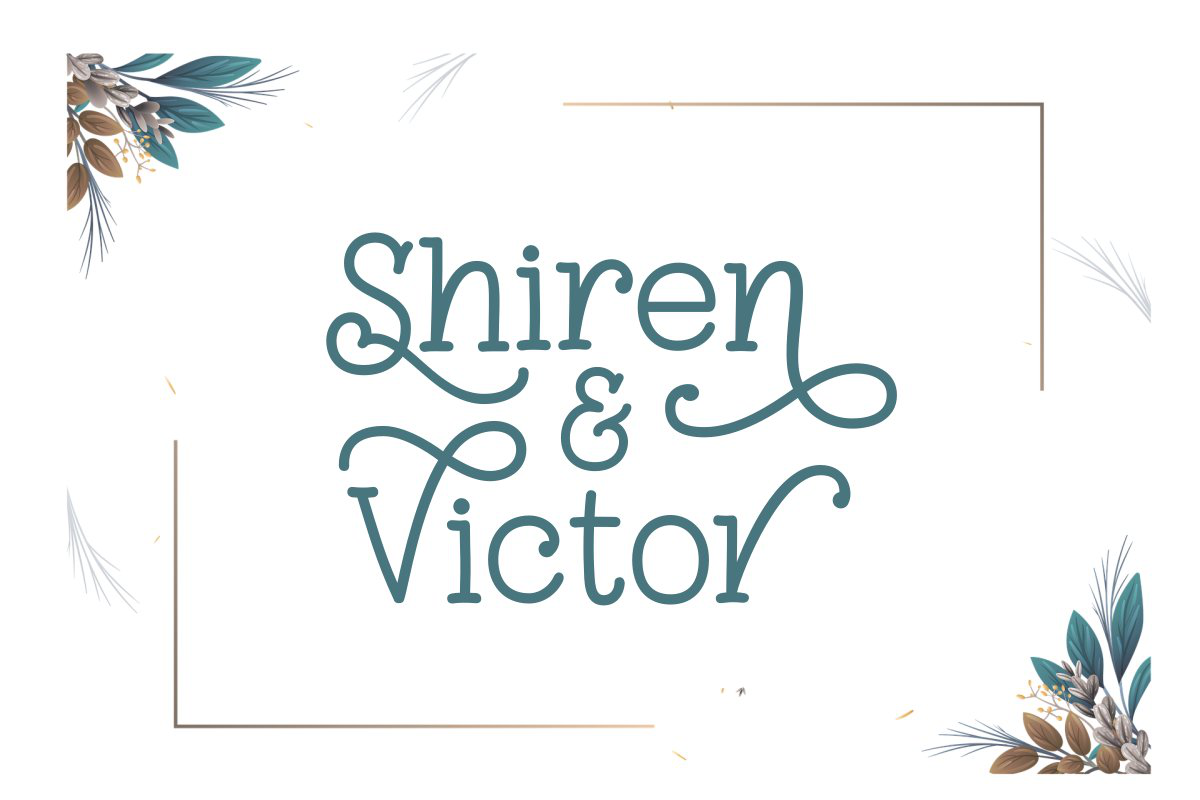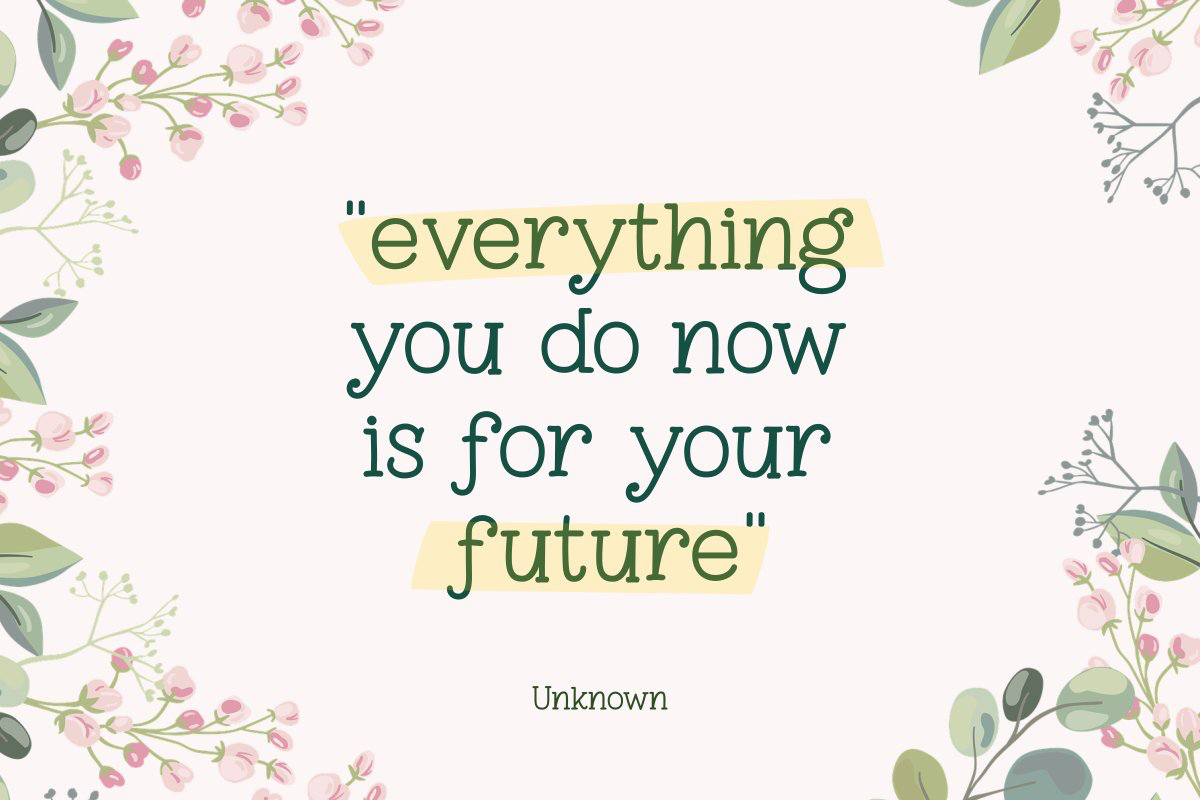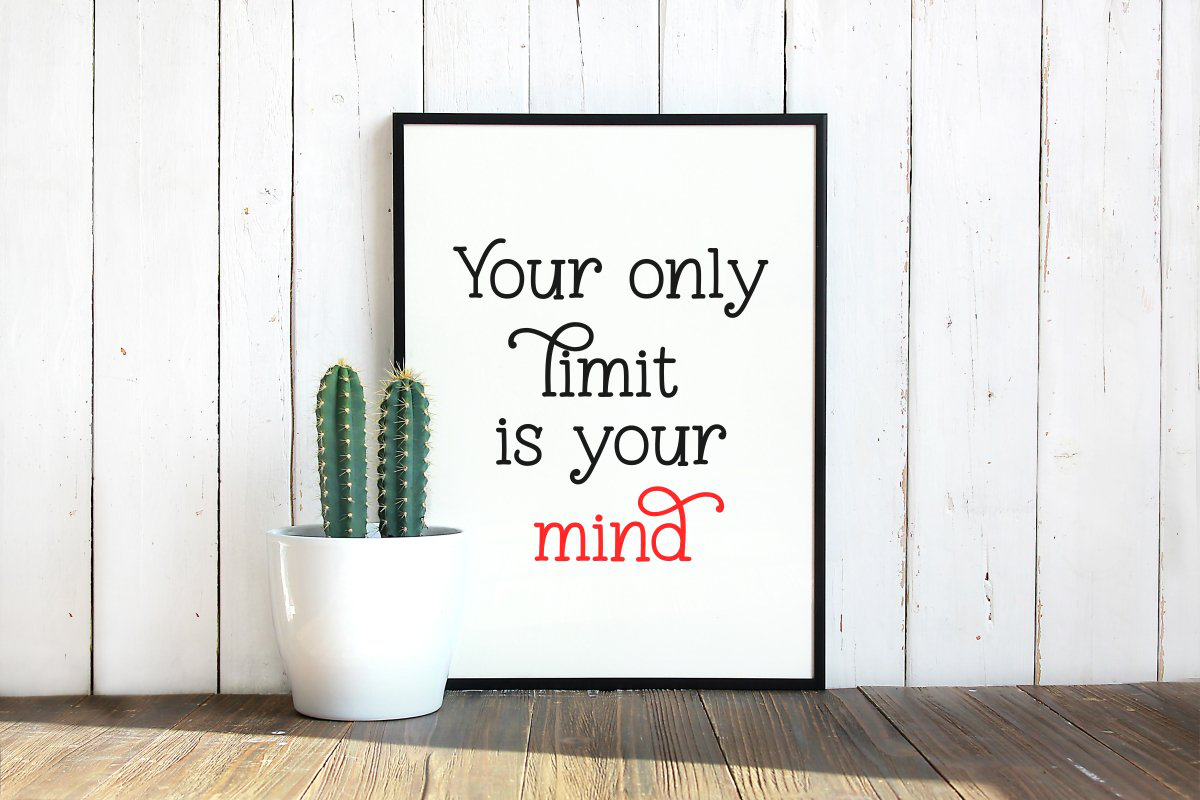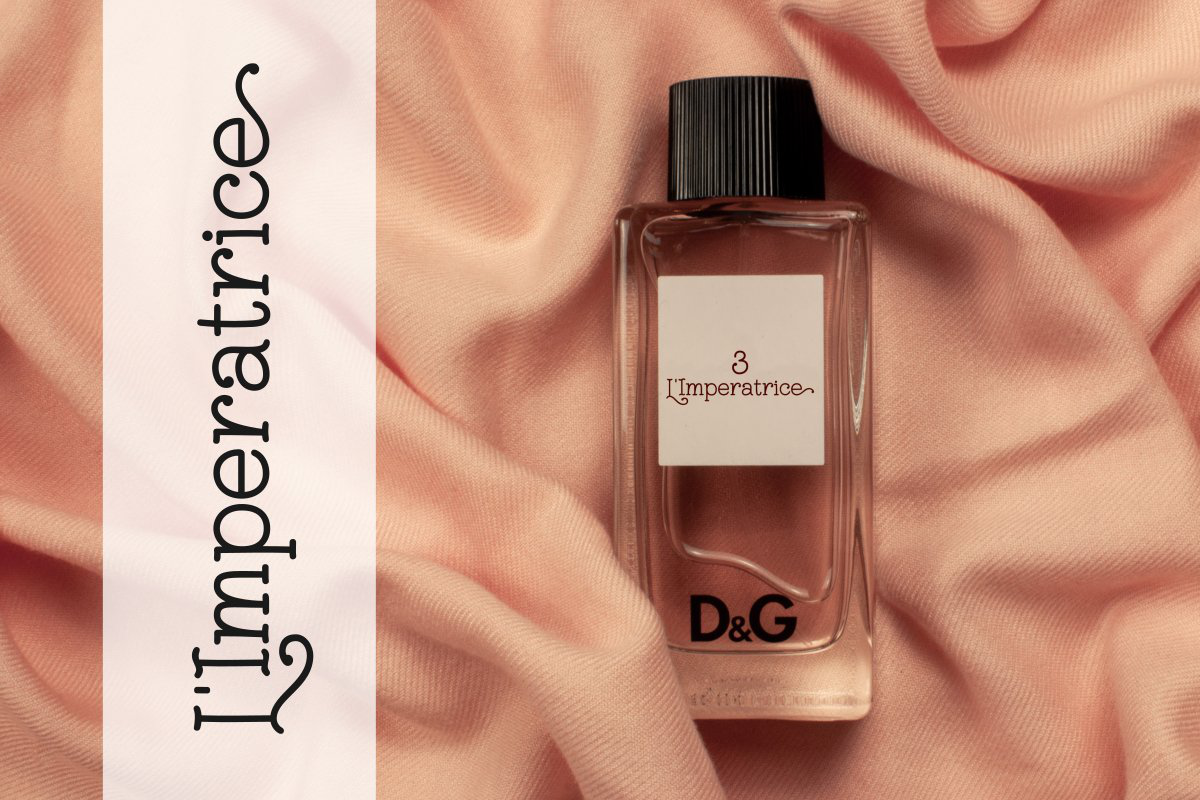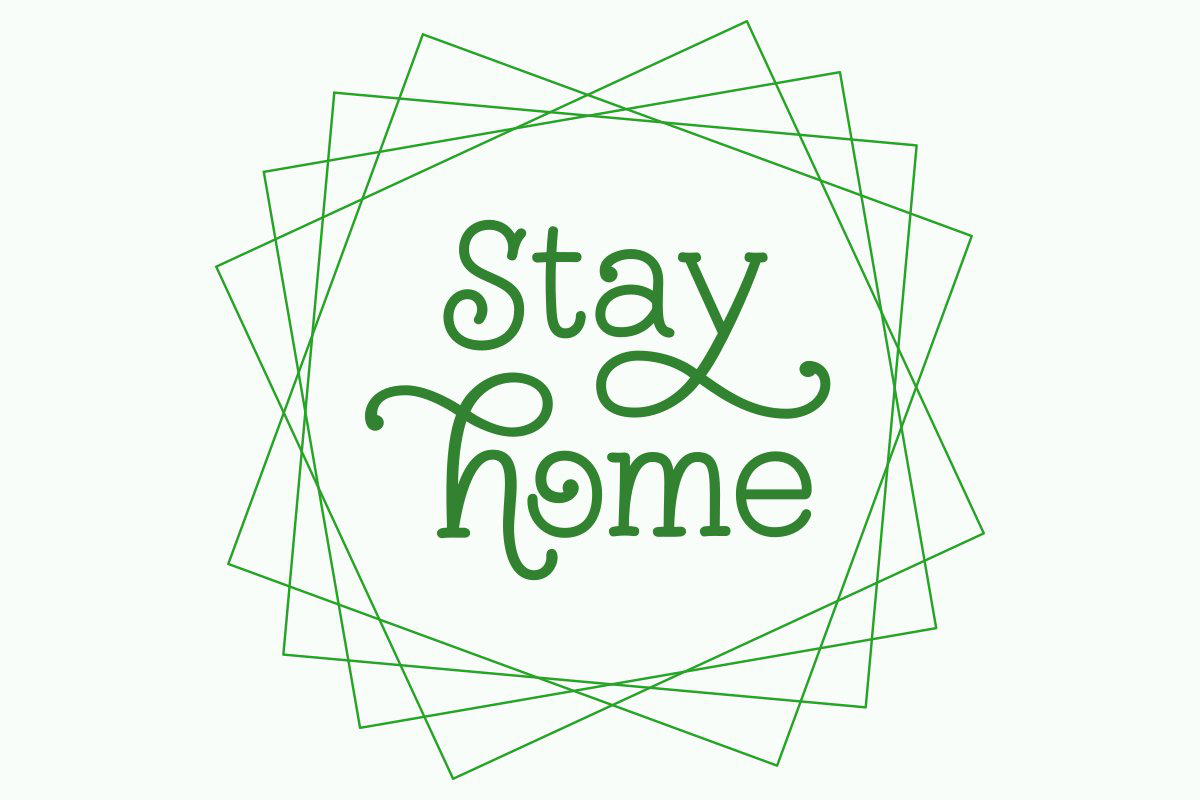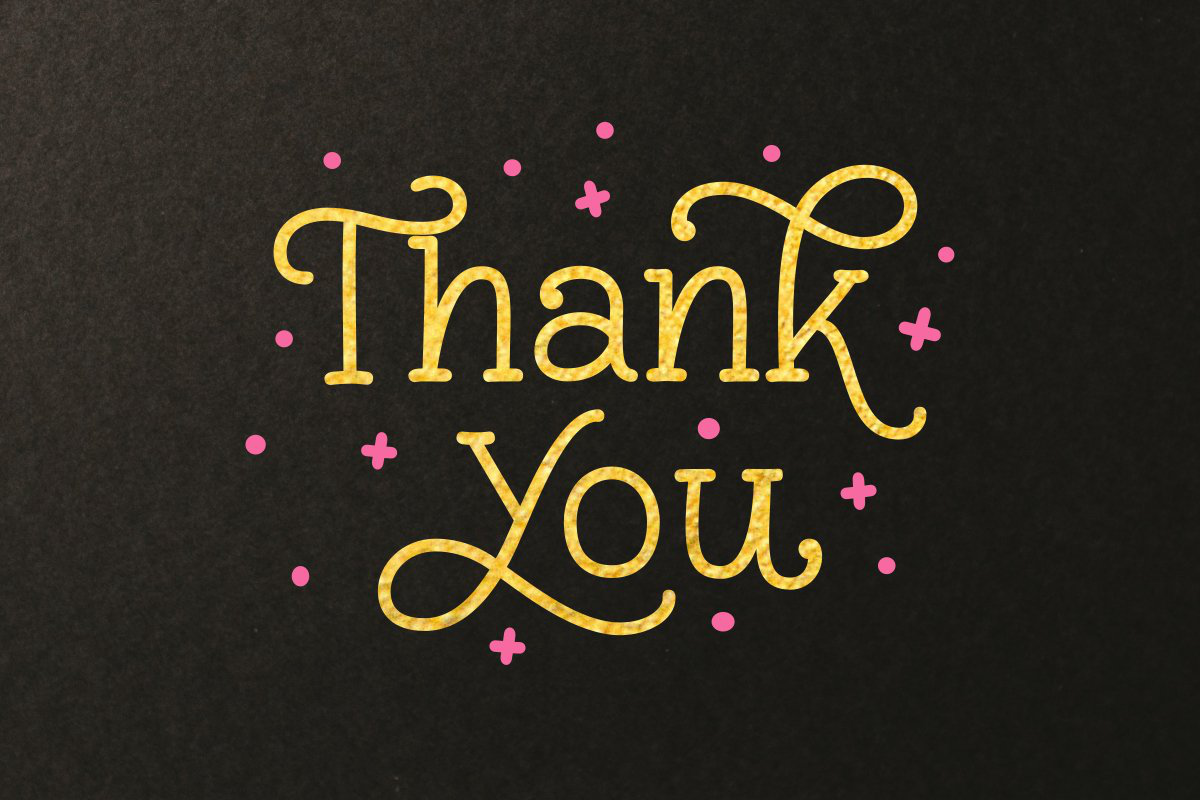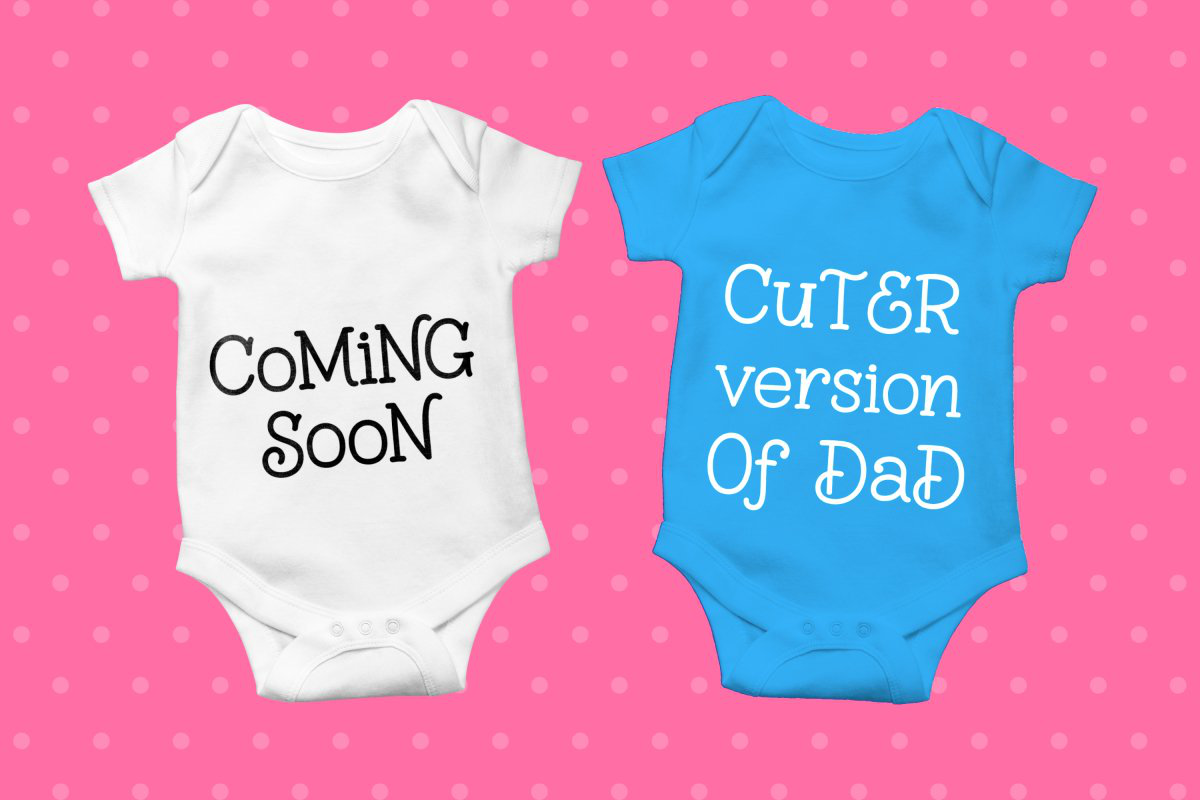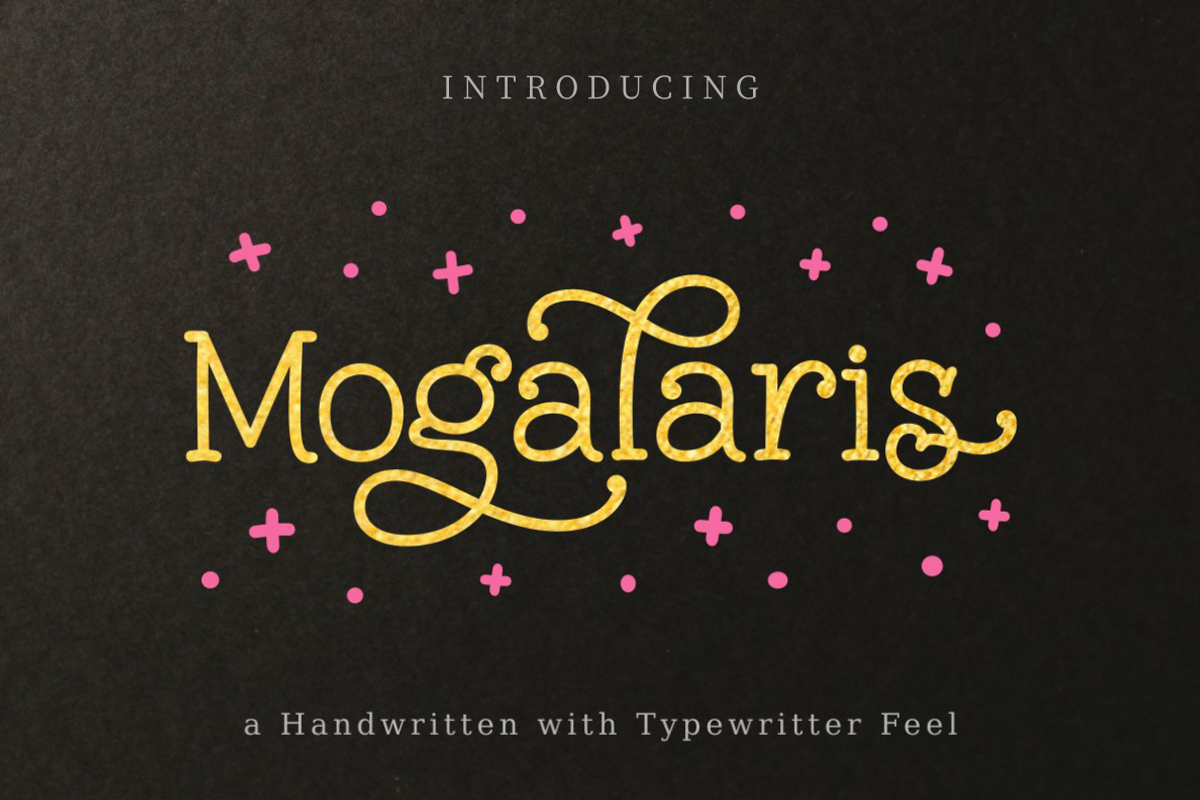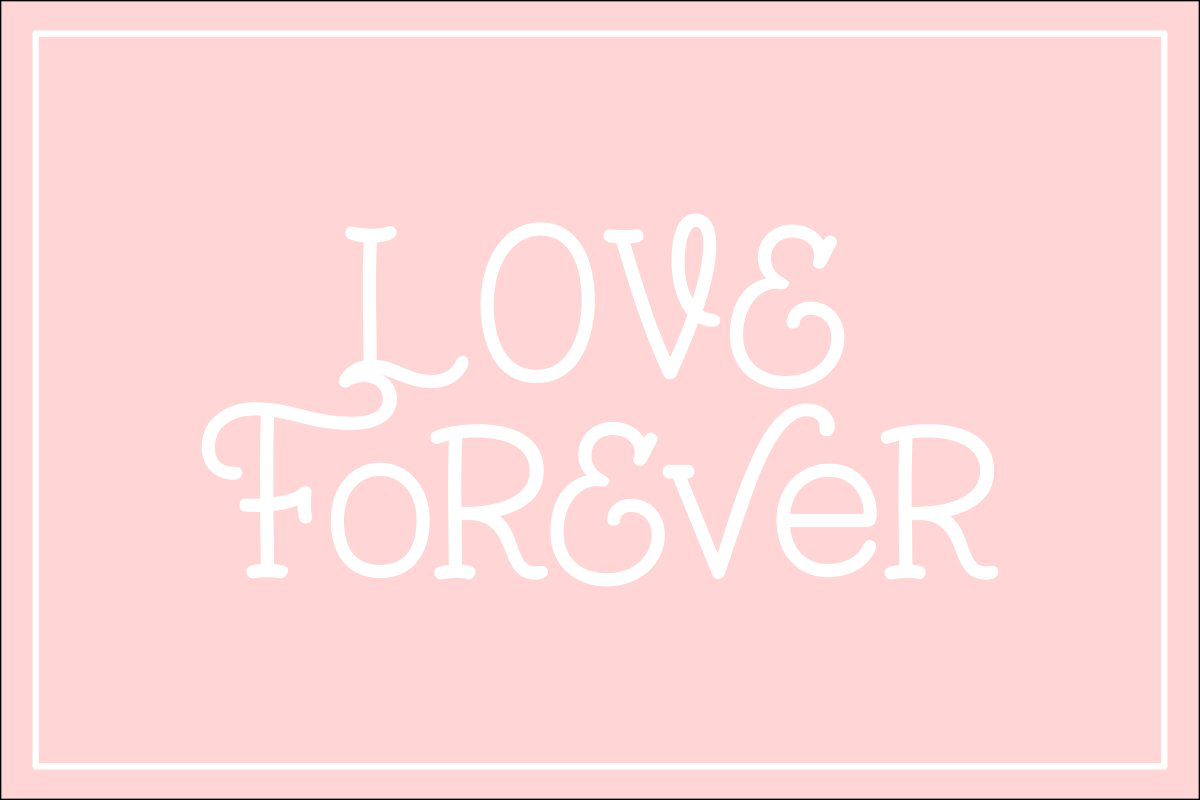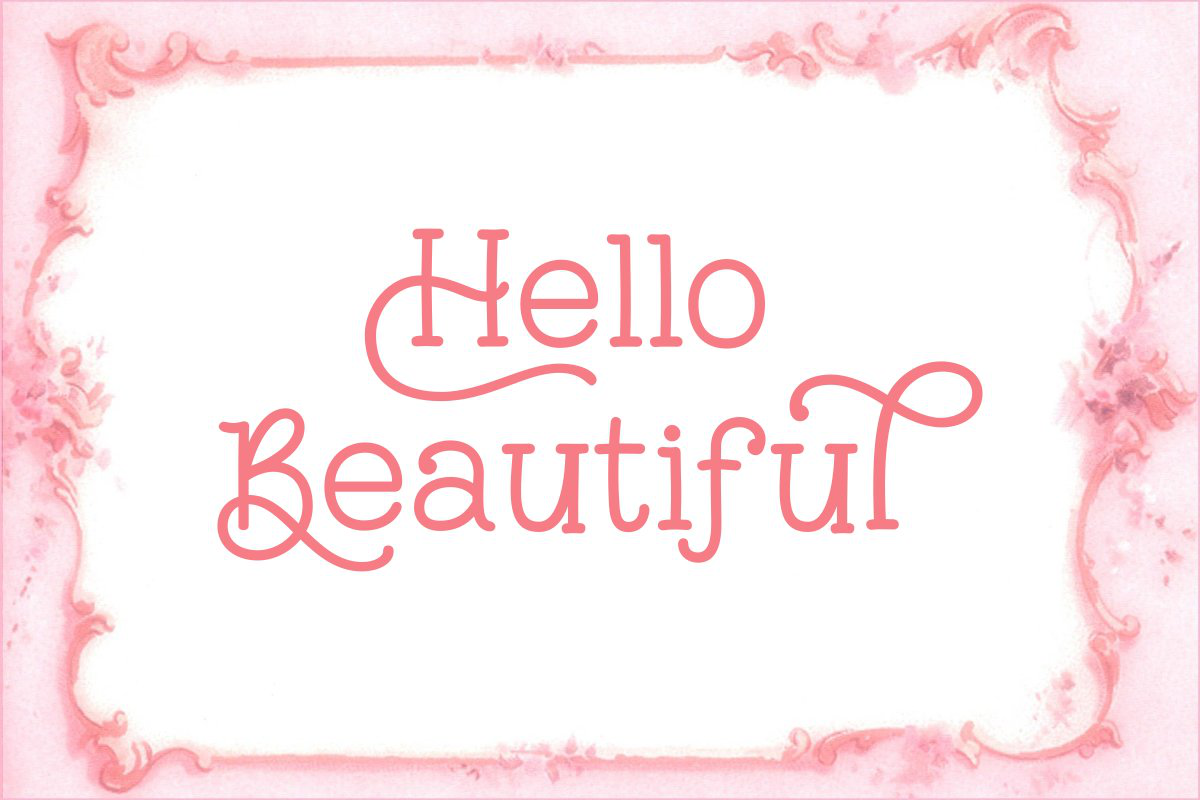
Mogalaris | Handwritten Font
Mogalaris is a cute and friendly handwritten font. Its natural and unique style makes it incredibly fitting to a large pool of designs. The only limit is your imagination!
- Alternates All Characters